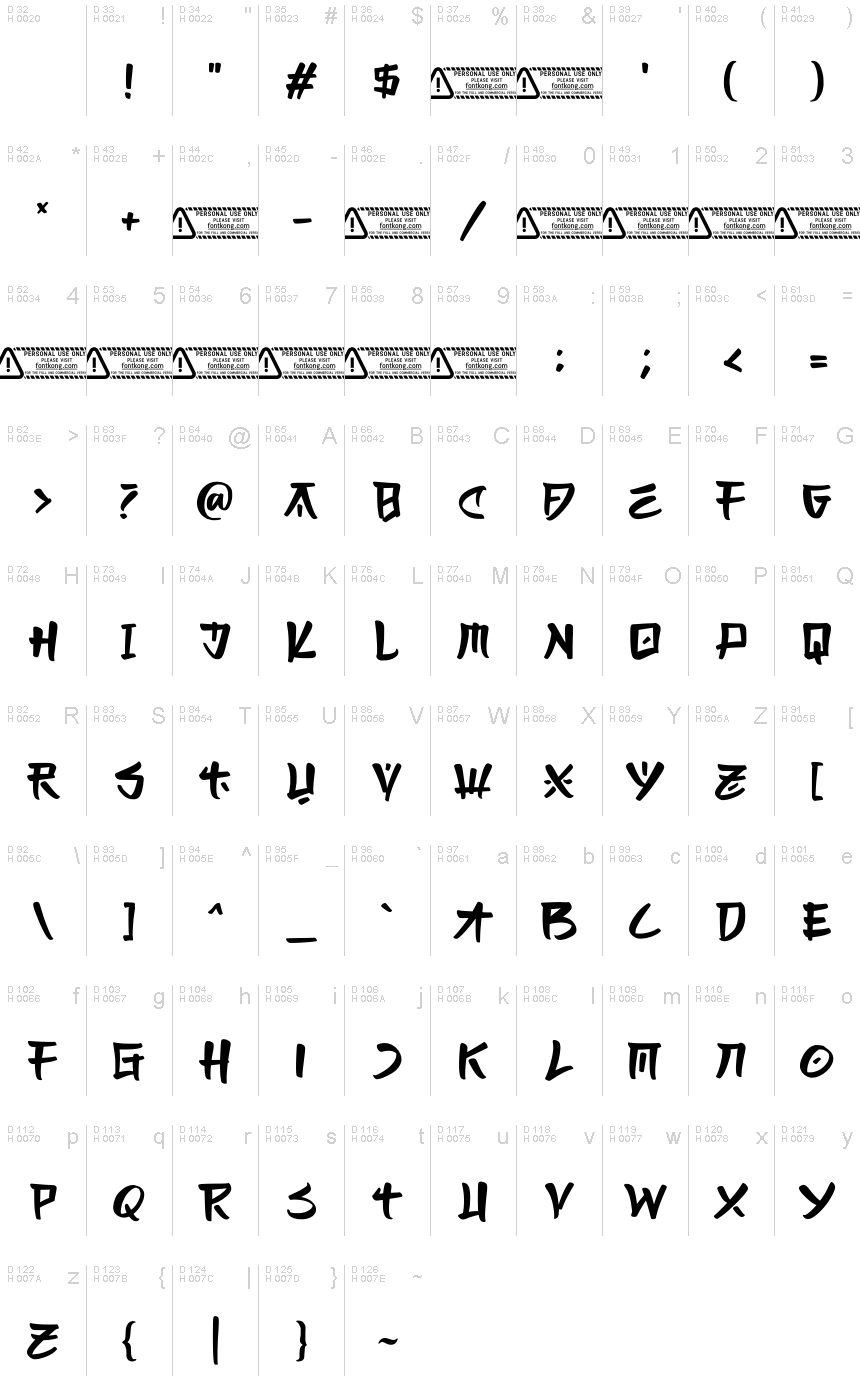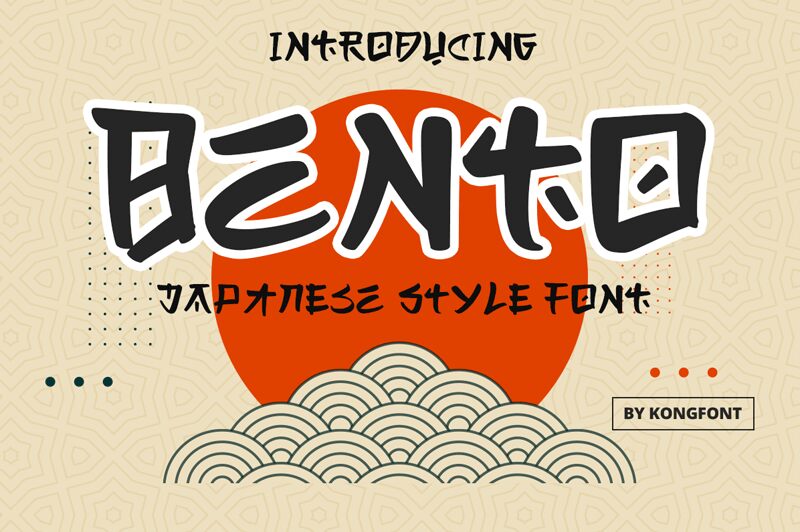
Bento
Bento, a captivating script font designed by Kong Font, exudes a captivating blend of elegance and dynamism. Inspired by the graceful strokes of traditional Japanese calligraphy, this font showcases a harmonious balance of sharp angles and fluid curves, creating a visually striking and emotionally evocative aesthetic. The distinctive, organic flow of the letterforms invokes a sense of artisanal craftsmanship, lending an air of authenticity and charm to any design.
The versatility of Bento extends across a wide range of applications, from branding and packaging to editorial layouts and personal projects. Its expressive qualities make it an ideal choice for creating impactful headlines, eye-catching logotypes, and alluring invitations. Whether used as a focal point or as a complementary accent, Bento's unique personality has the power to captivate and engage audiences, elevating the overall design to new heights of elegance and sophistication.